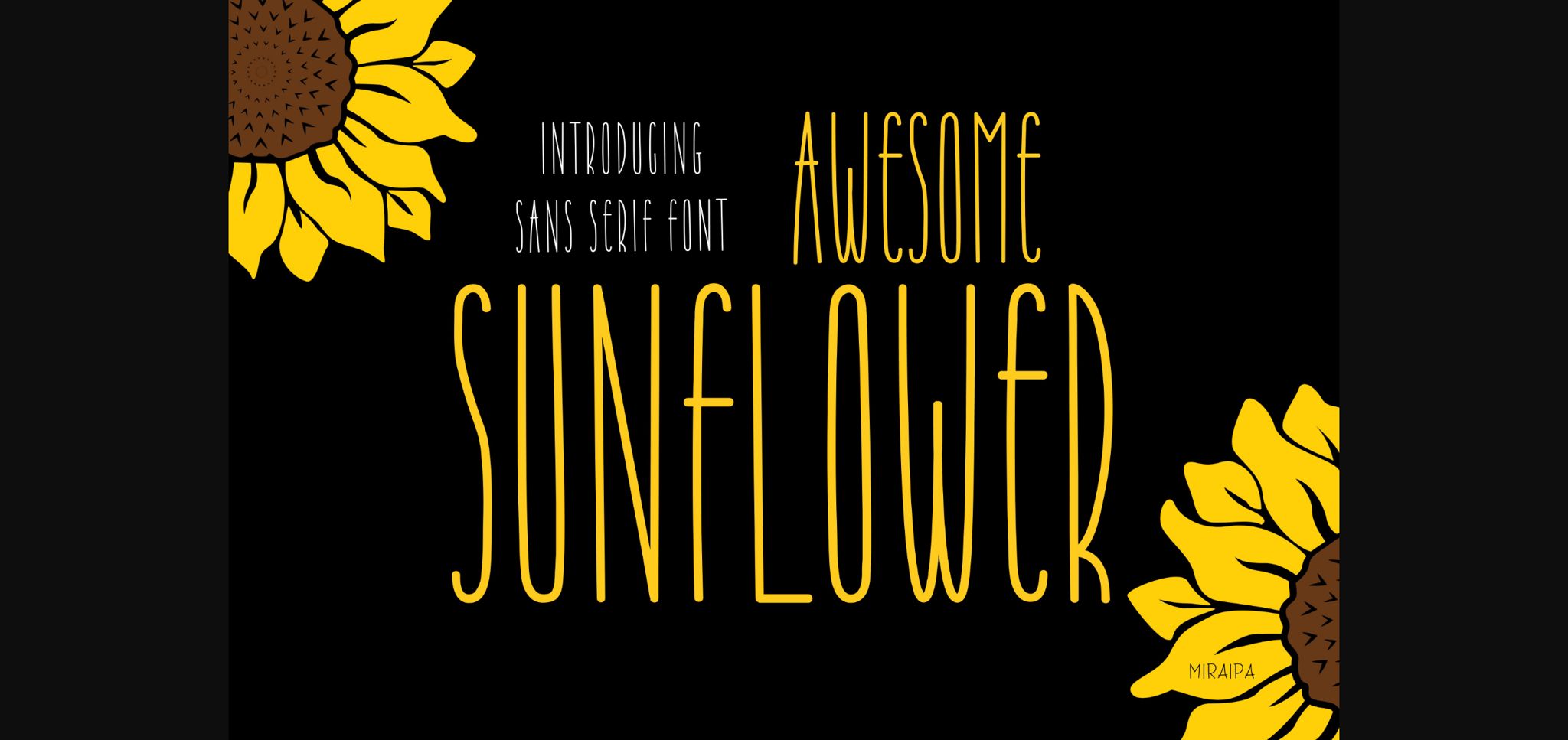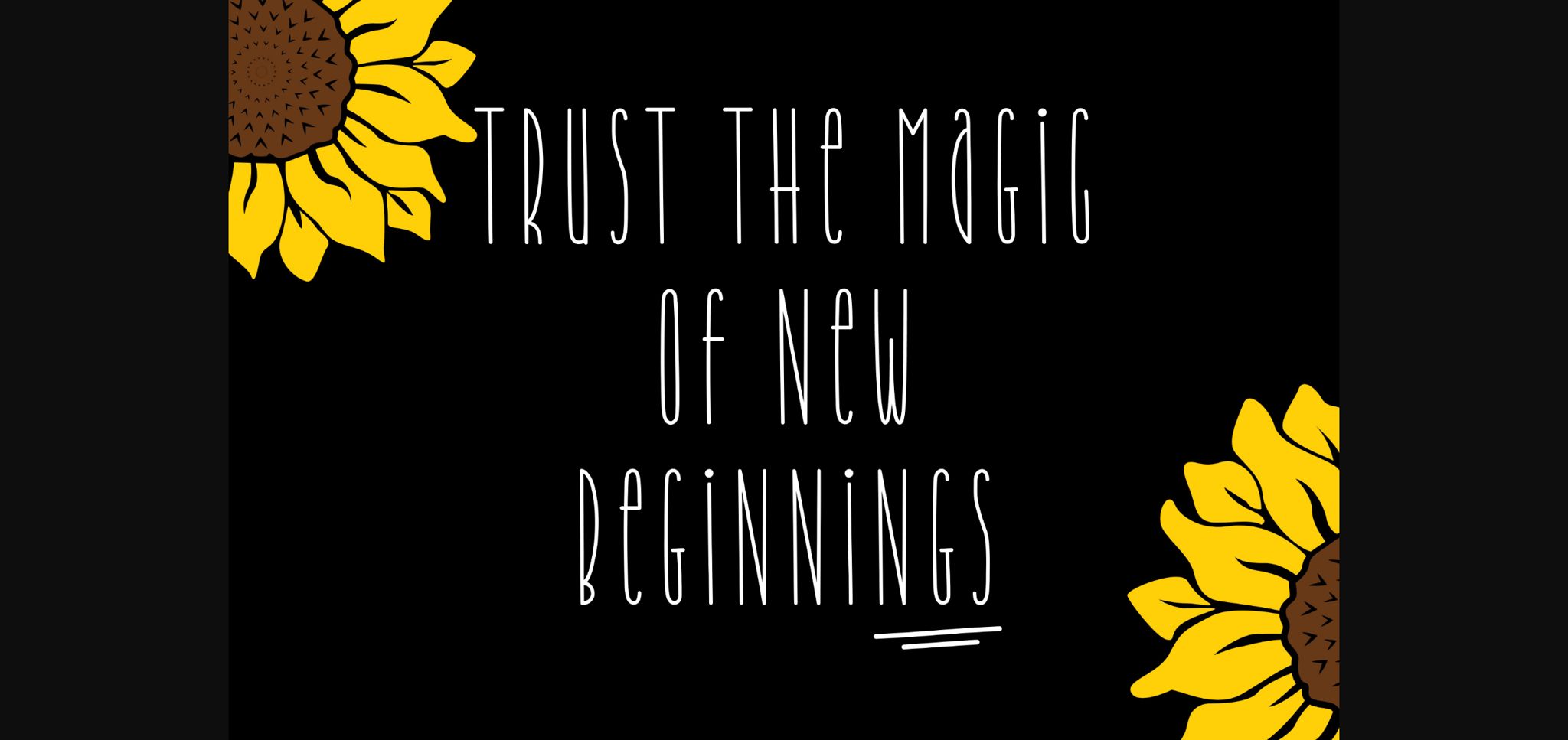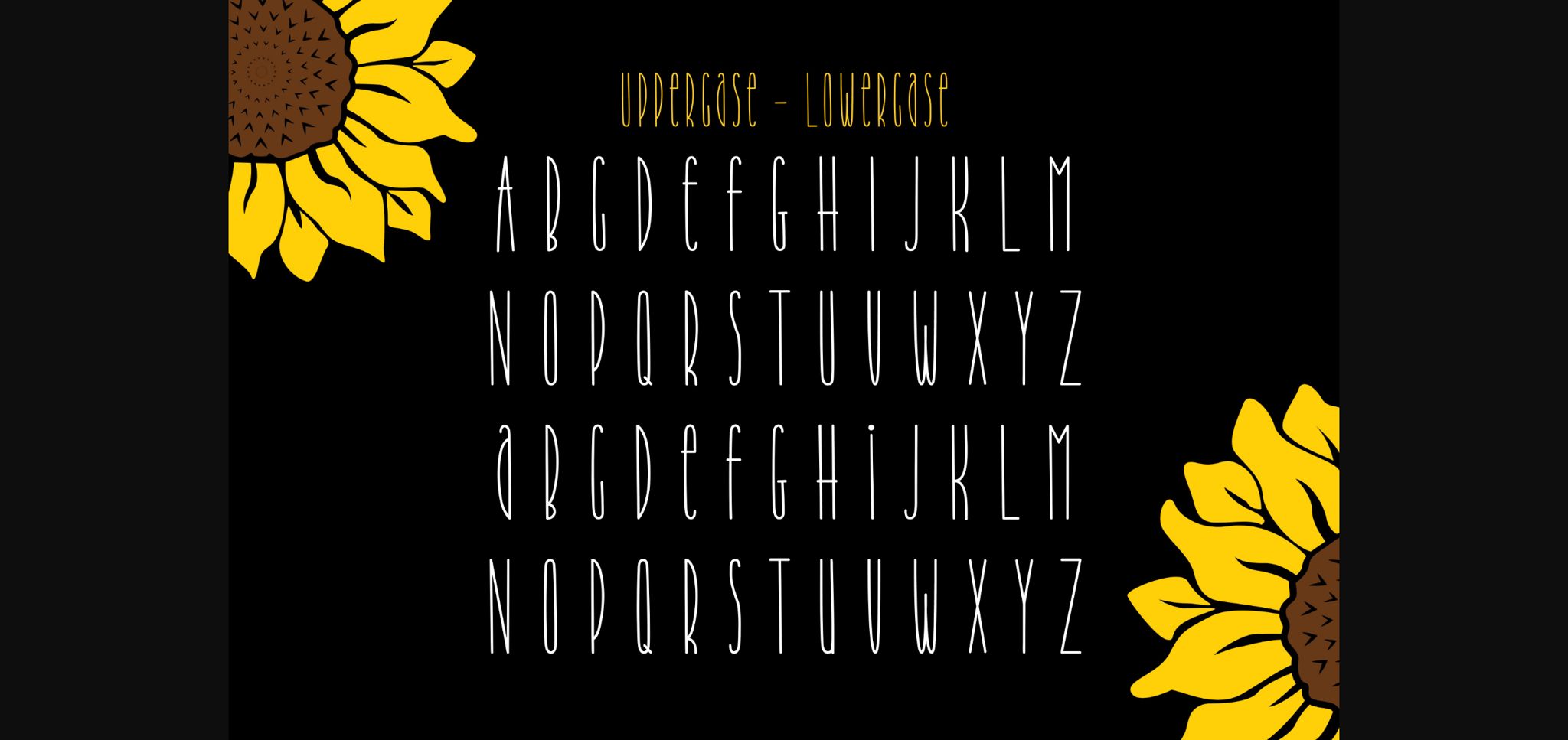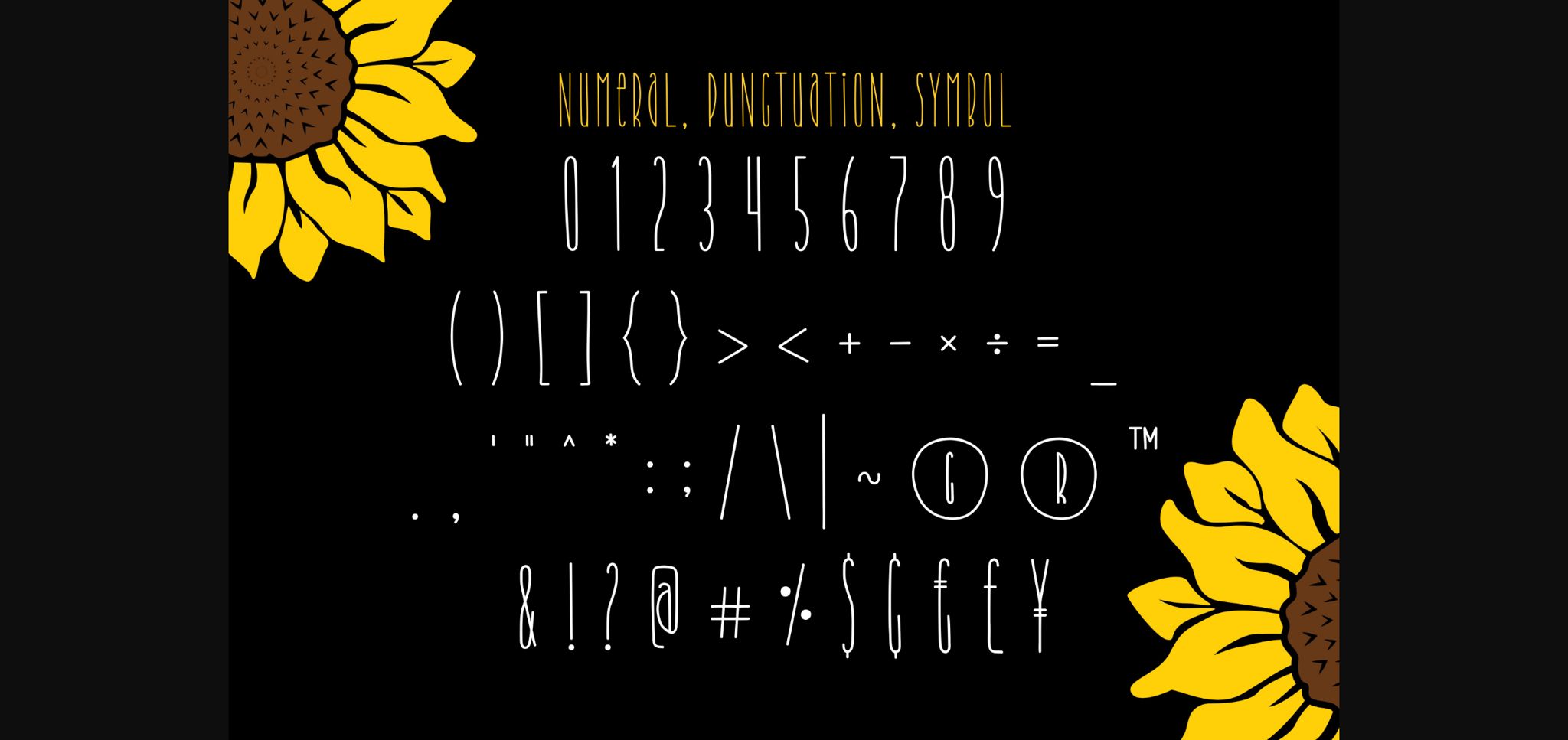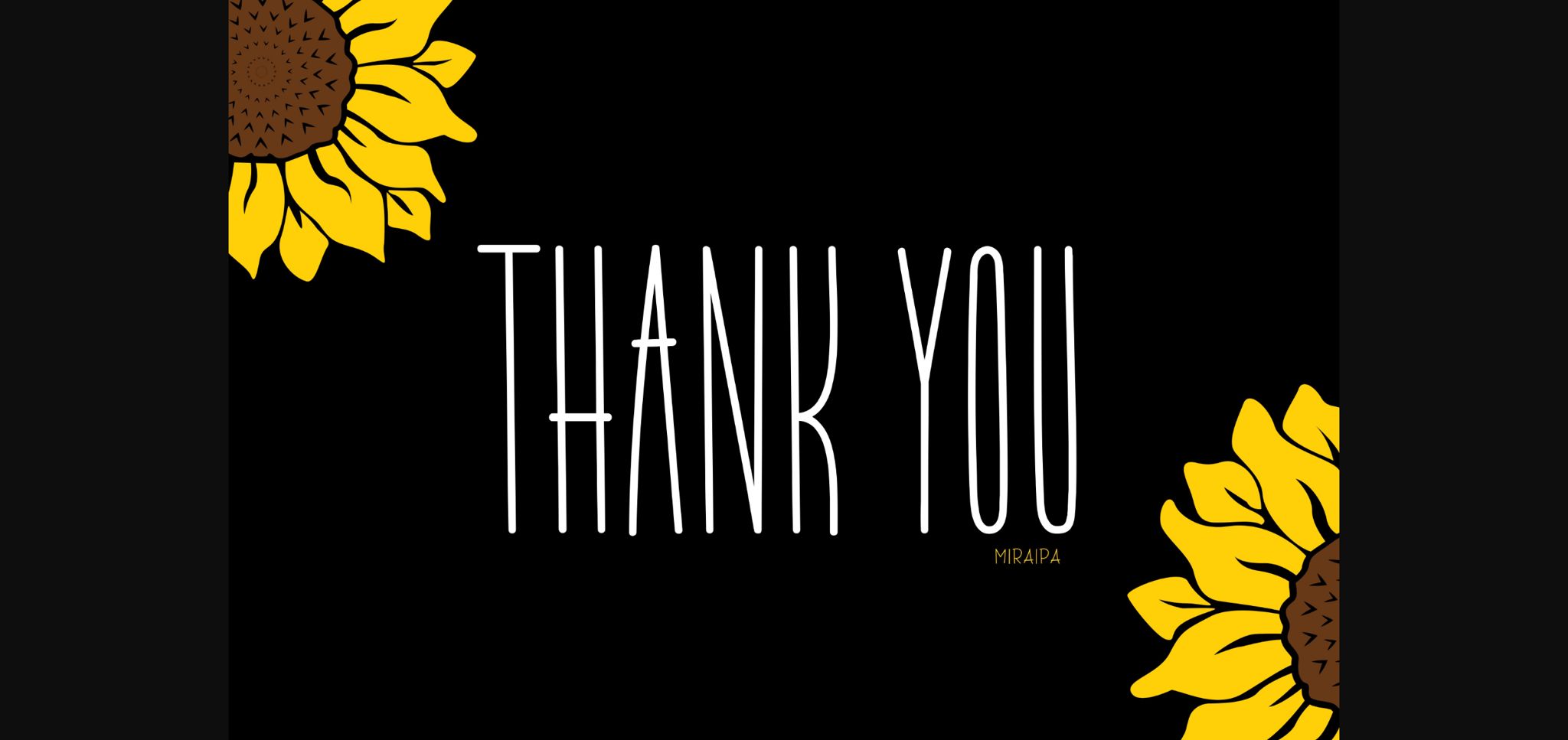
HomeSans Serif FontsAwesome Sunflower Font Sans Serif Fonts Awesome Sunflower Font FacebookTwitterPinterestWhatsApp 1 of 7 ... Awesome Sunflower Font Poster 2... Awesome Sunflower Font Poster 3... Awesome Sunflower Font Poster 4... Awesome Sunflower Font Poster 5... Awesome Sunflower Font Poster 6... Awesome Sunflower Font Poster 7... About Awesome Sunflower Font Awesome Sunflower is a sweet and quirky handwritten sans serif font. It embodies playfulness and authenticity and is the perfect choice for any project that requires a whimsical and joyful touch. DOWNLOAD NOW 223 0 People also explored Thenicle Outline Black Font Twinkle Dream Font Mono Total True Love Font Nersans Font Nathan Font Baby Yasmine Font Sweety Font Celesta Font Lovely Day Font Alessea Font Cherrolen Font TagsAwesome Sunflower Font Previous articleSilent Sunshine FontNext articleMomentum Font LEAVE A REPLY Cancel reply Comment: Please enter your comment! Name:* Please enter your name here Email:* You have entered an incorrect email address! Please enter your email address here Website: Save my name, email, and website in this browser for the next time I comment. Unlock Endless Creativity with the FREE September Clipart Huge Bundle (Valued at $700!) Personal Use Free Hashira Mt Personal Use Free Read more Adriator Personal Use Free Read more Hello Sister Personal Use Free Read more Child Witch Personal Use Free Read more BLOG Using Fonts in Digital Marketing: Tips to Strengthen Your Brand Identity In the realm of digital marketing, every visual element plays a crucial role in shaping a brand's identity, and fonts are no exception. The... To increase your work productivity, choose the most readable fonts. Where to Buy American Fonts Online in 2024 Exploring Font Trends